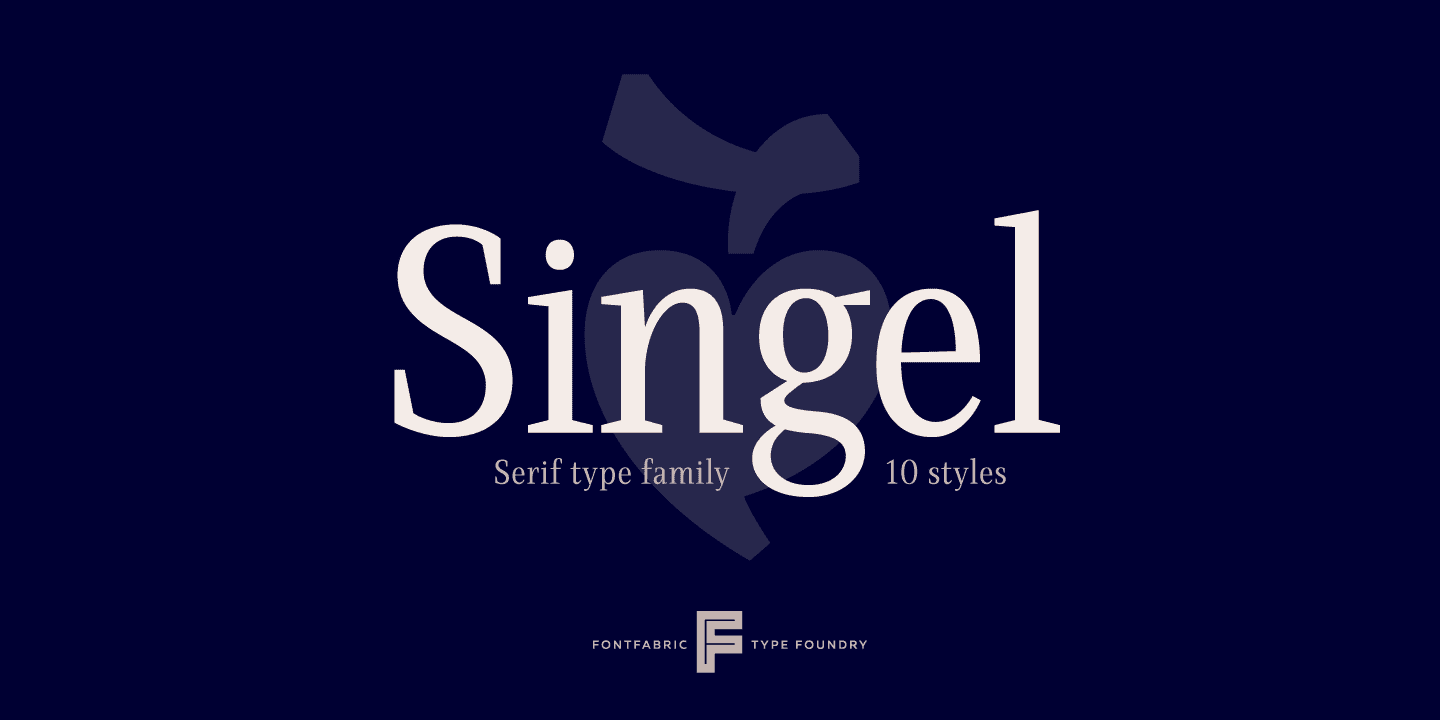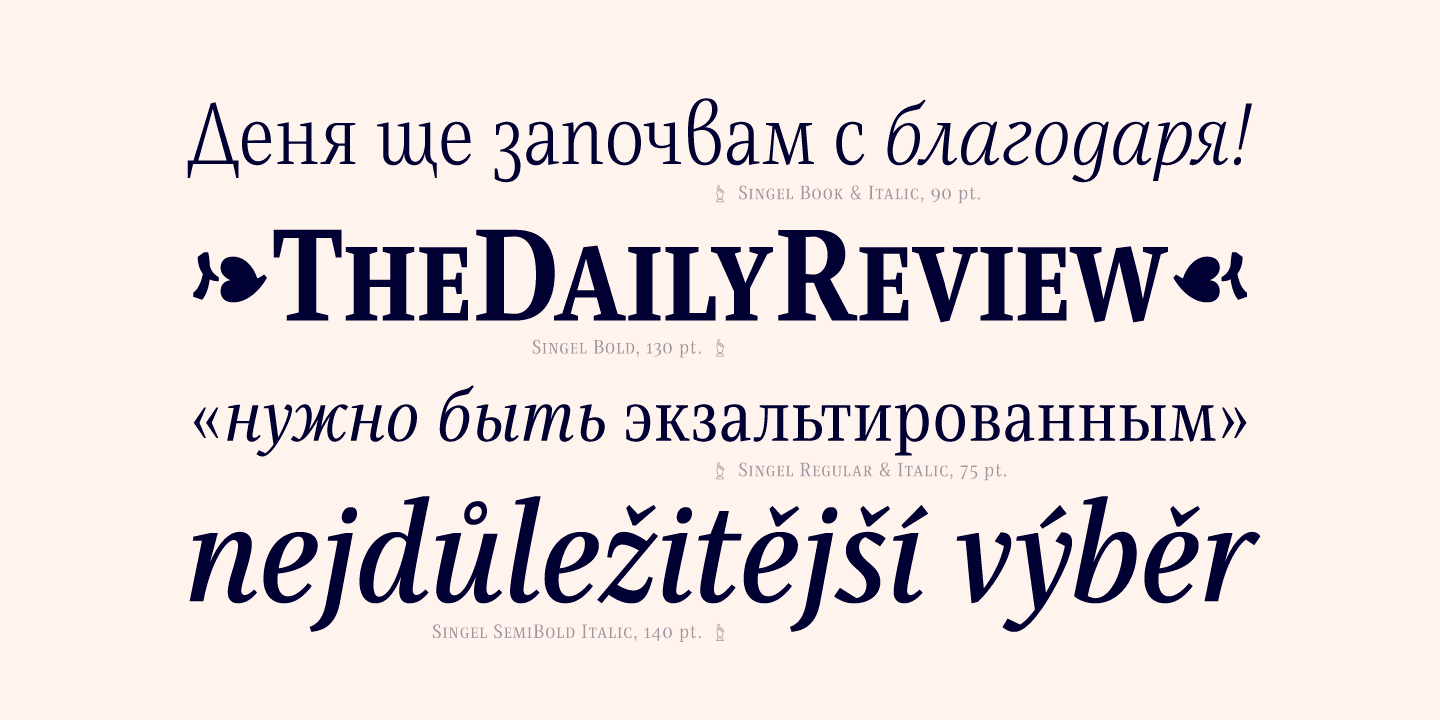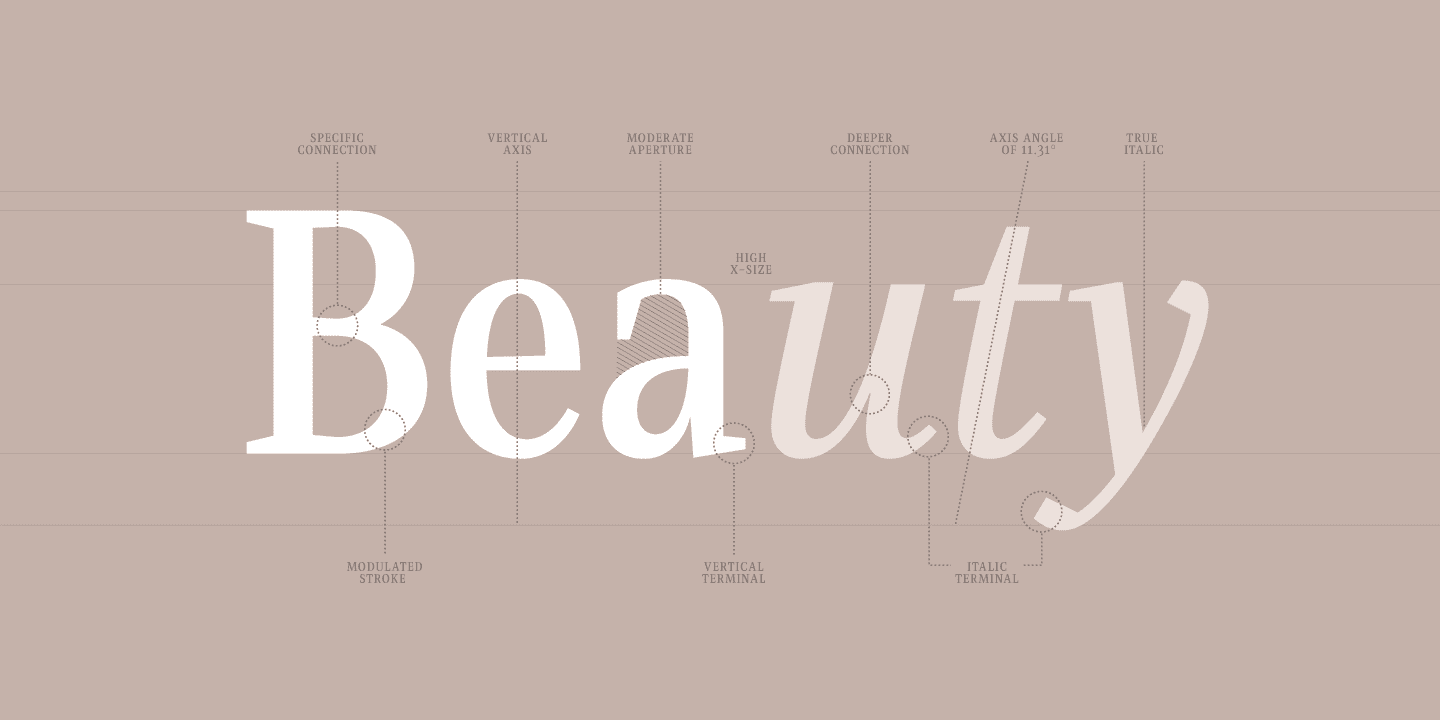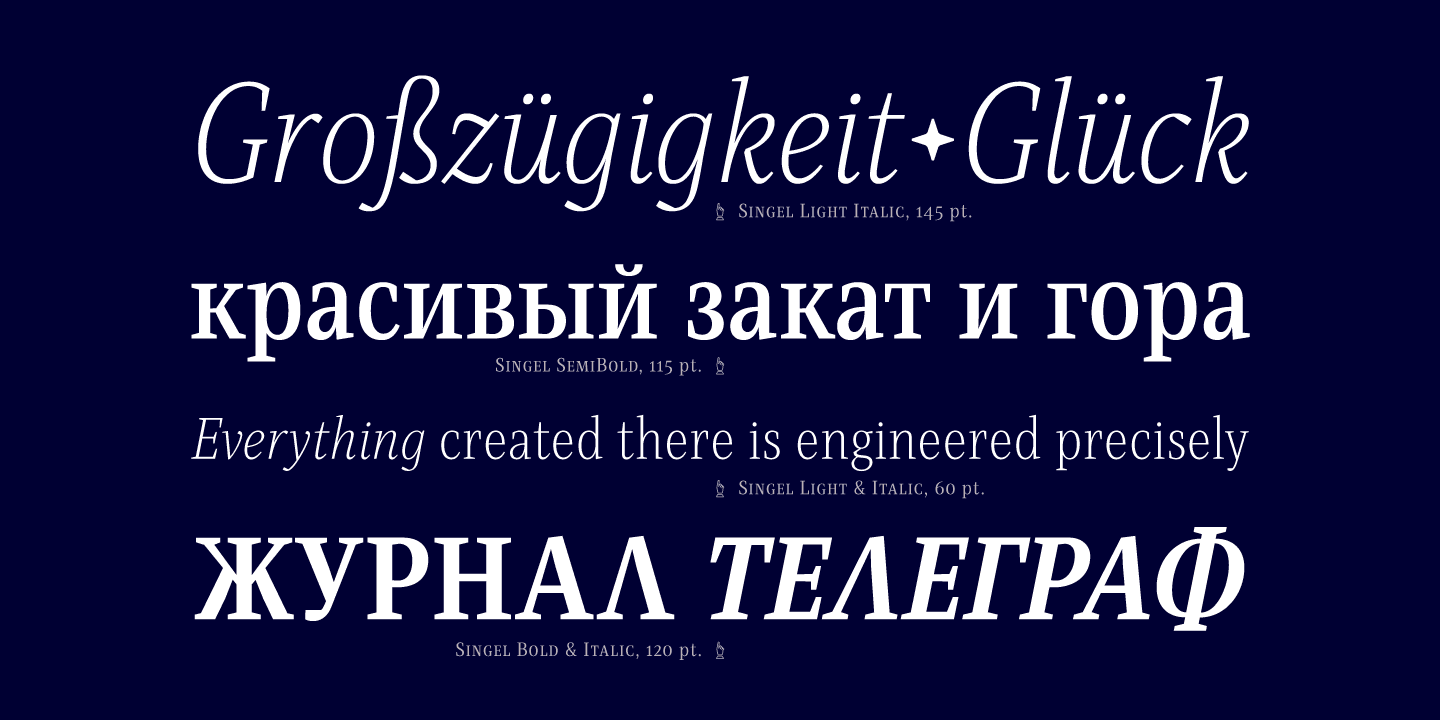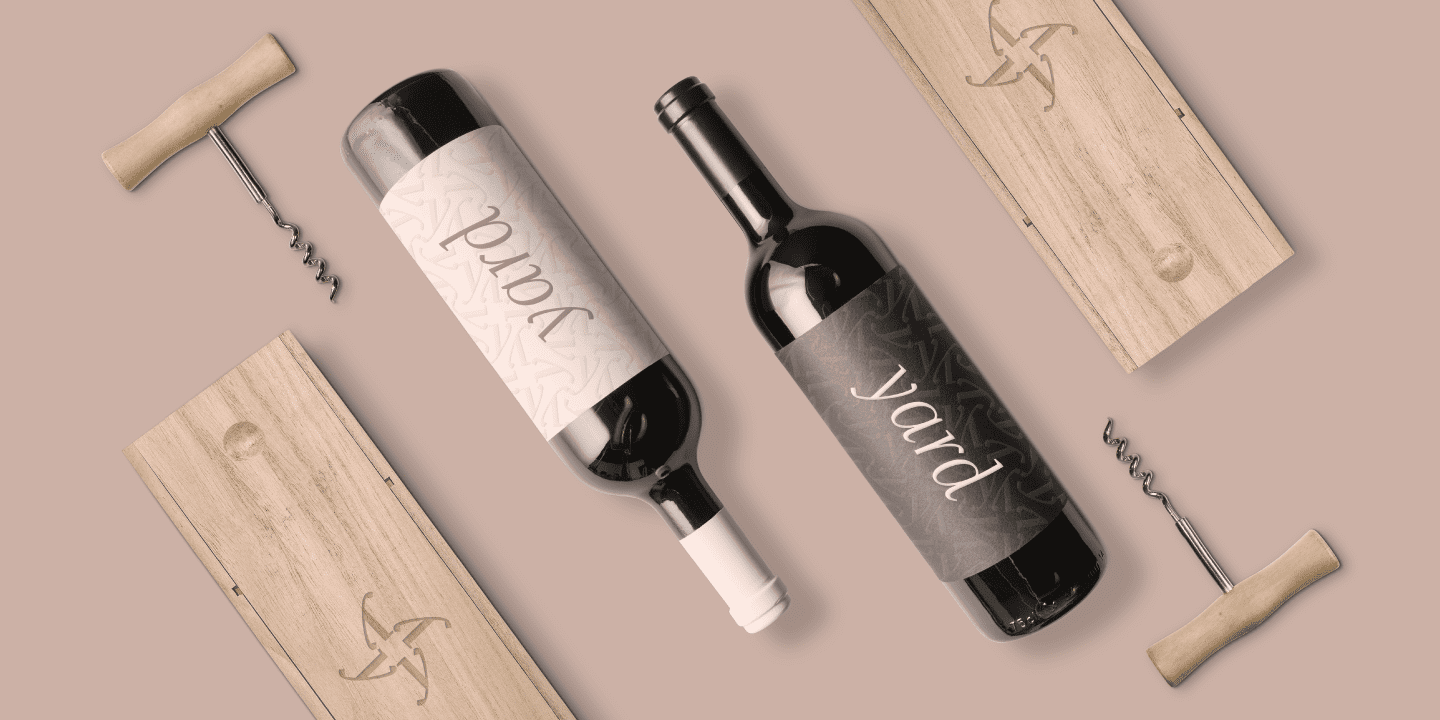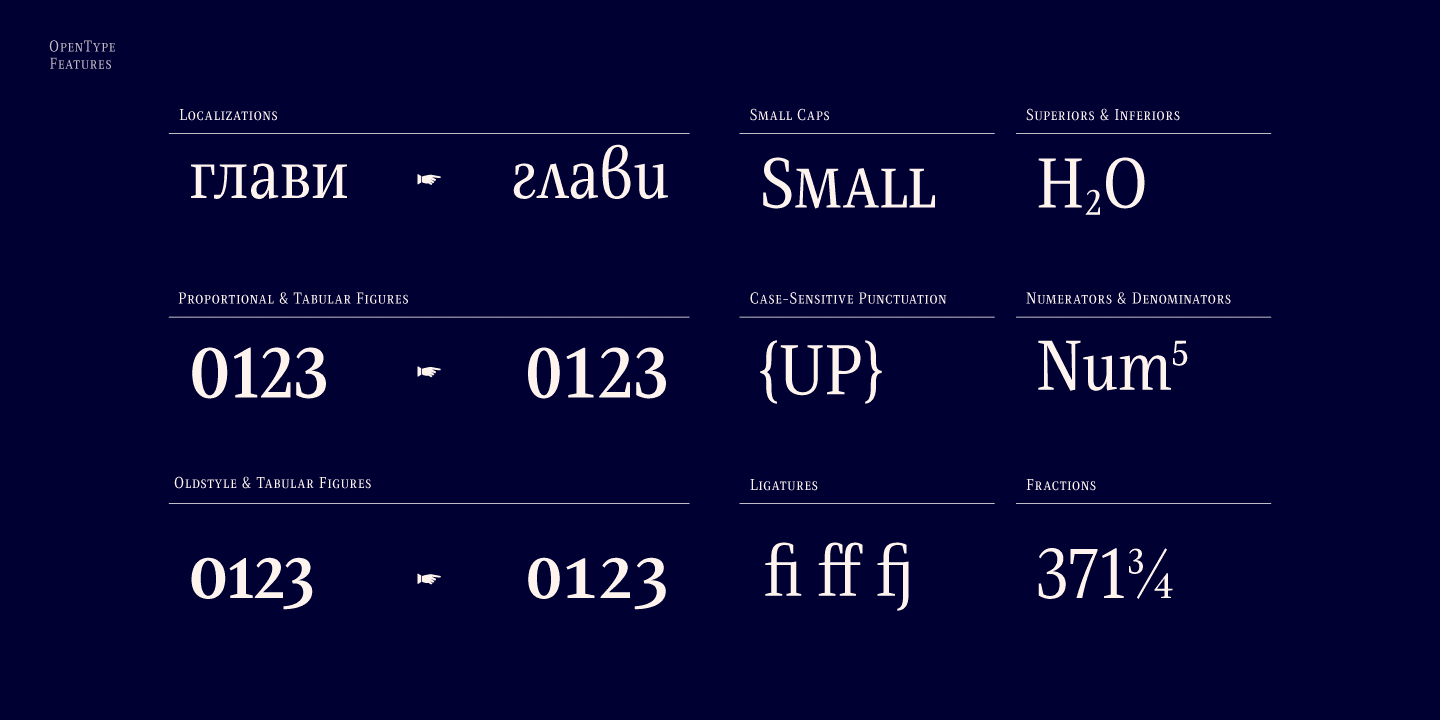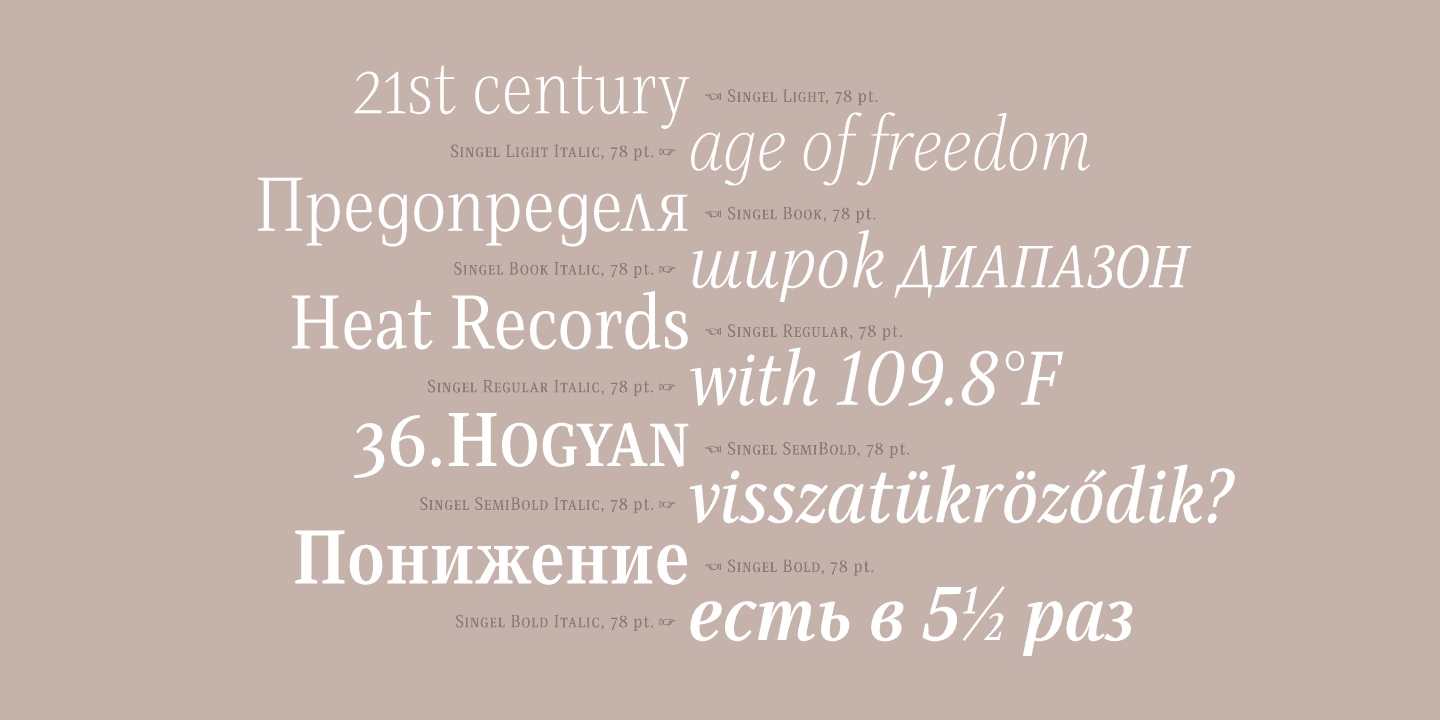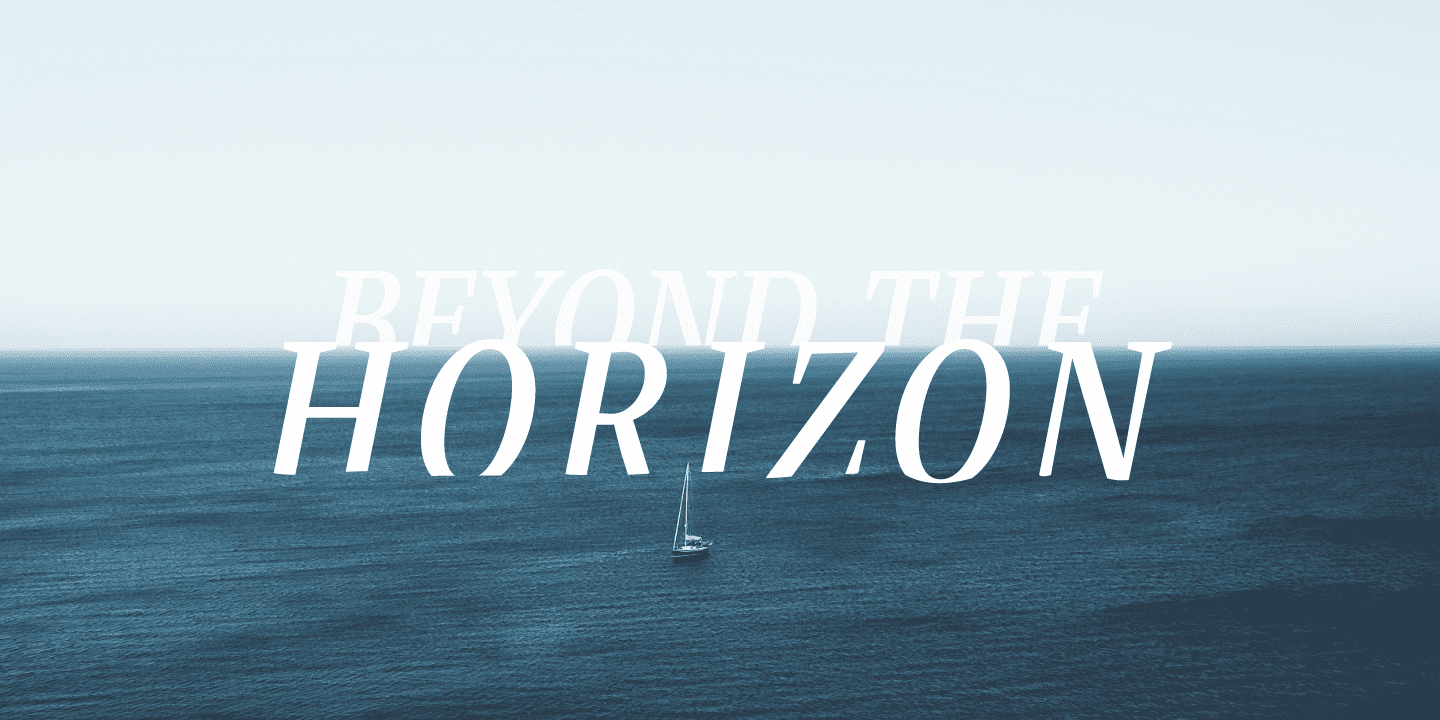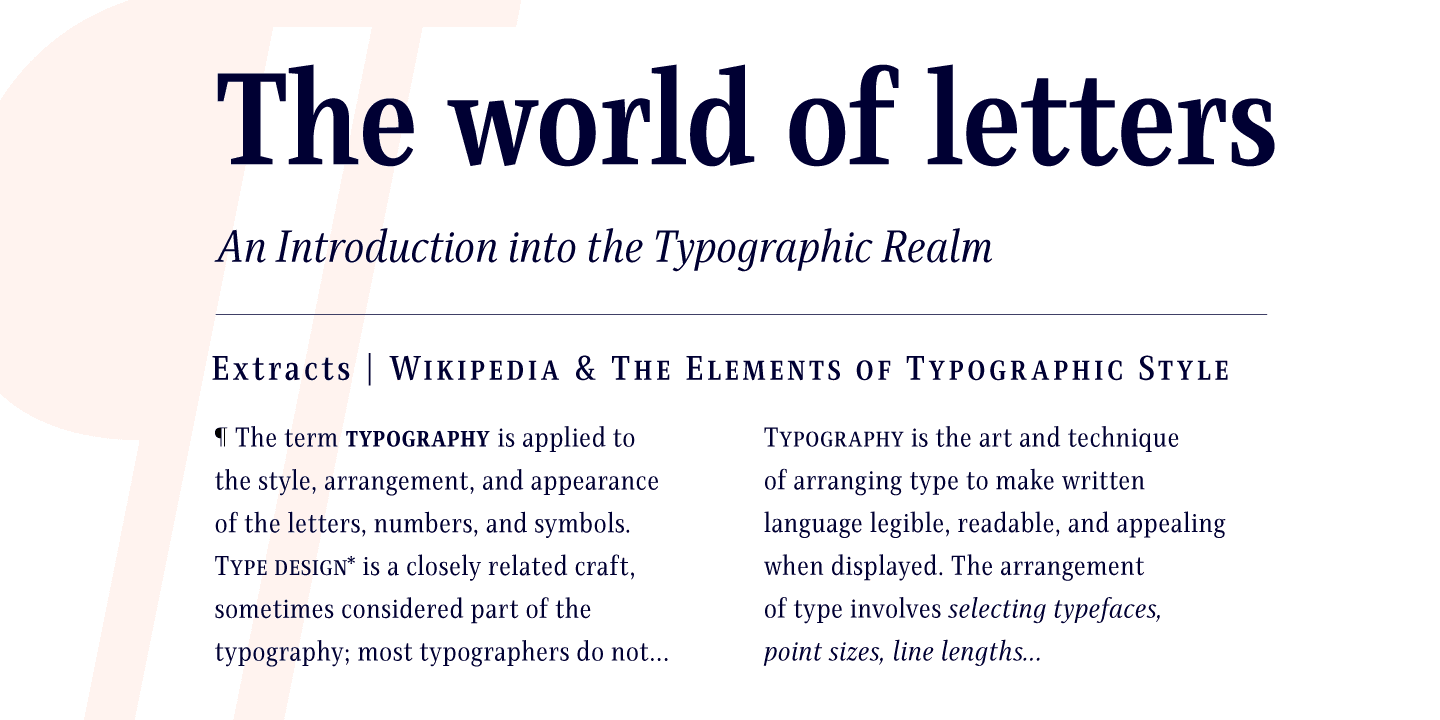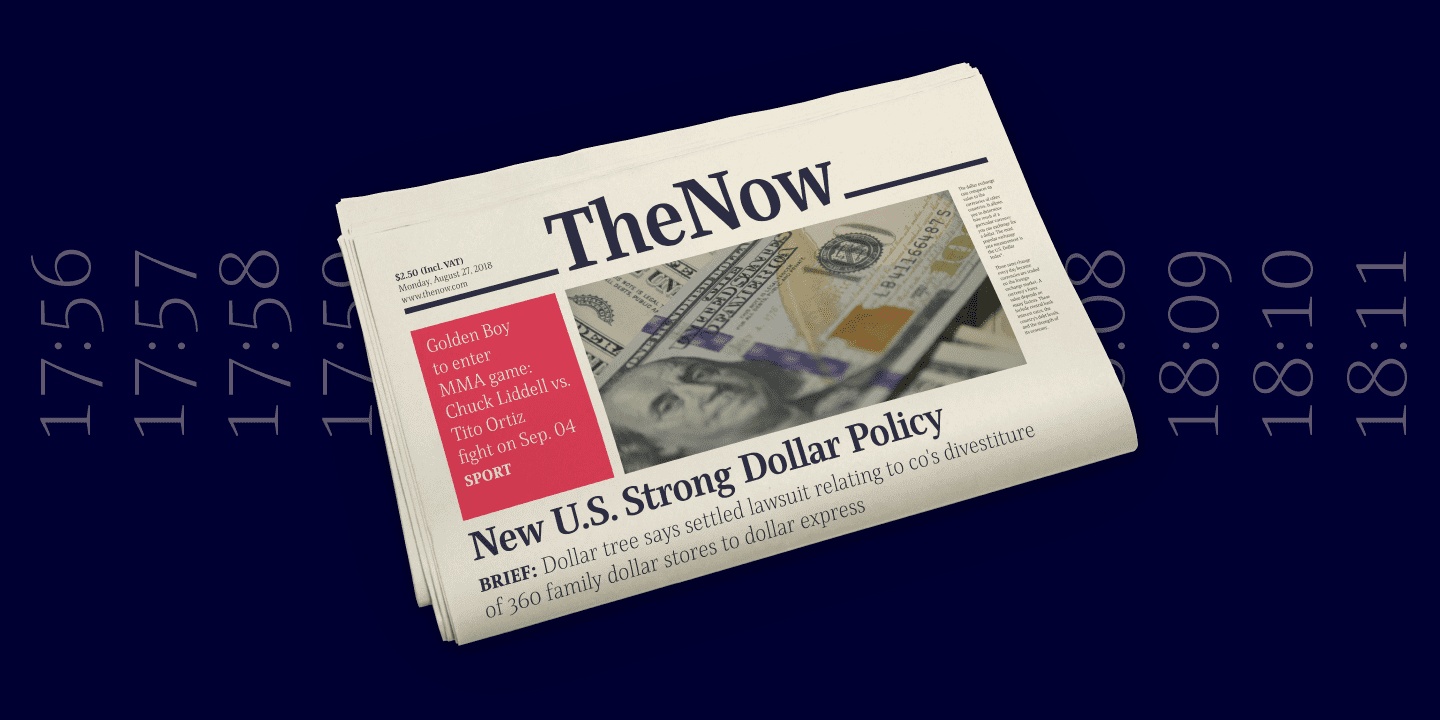
Features:
• Over 900 glyphs in 10 styles (Light to Bold);
• Extended Latin and Cyrillic for more than 130 languages;
• Tall x-height and Semi-Condensed proportions;
• High contrast and modulated stroke with vertical stress;
• Neoclassical characteristics and moderate apertures;
• Full set of Small Capitals;
• True form of italics;
• Coverage of multiple OpenType features;
• Suitable for wide design purposes.